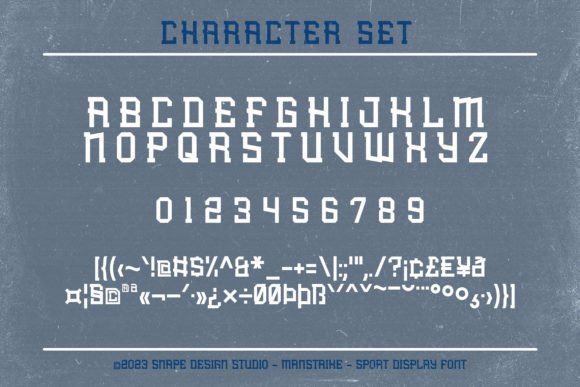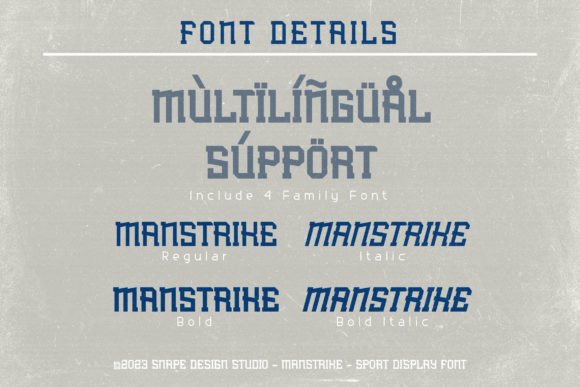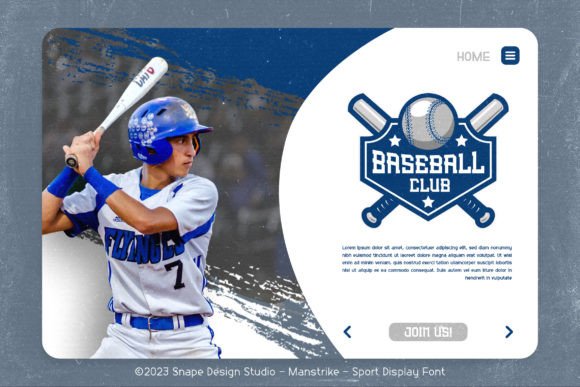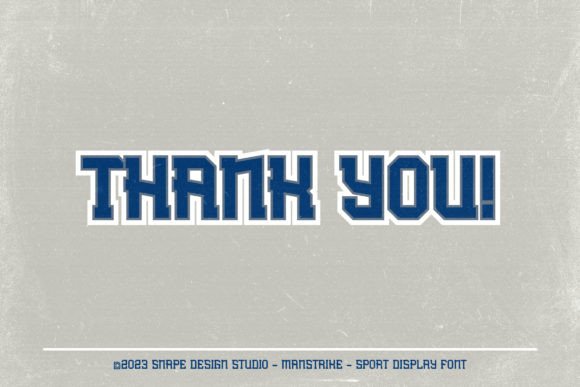
Introduction to Manstrike Font Font
Fonts play a crucial role in design, and the Manstrike Font font is a typeface that brings both character and versatility to any project. Whether you’re working on a branding project, a website, or a print design, the Manstrike Font font offers a unique style that can elevate your work.
Manstrike is an eye-catching and attractive display font.
It features bold, modern letterforms with clean lines and a strong presence, making it perfect for sport-related crafts, goods and logos Itβs sure to make any design stand out.
Key Features of Manstrike Font Font
Why Choose Manstrike Font Font?
The Manstrike Font font is more than just a typeface β it’s a design tool that helps you communicate your message with style and clarity. Its unique character set and versatile design make it suitable for a wide range of applications, from elegant invitations to bold headlines.
With its carefully crafted letterforms and balanced proportions, the Manstrike Font font ensures readability and visual appeal across all mediums.
What makes Manstrike Font font special?
The Manstrike Font font stands out with its unique design, exceptional readability, and versatility across various design applications.